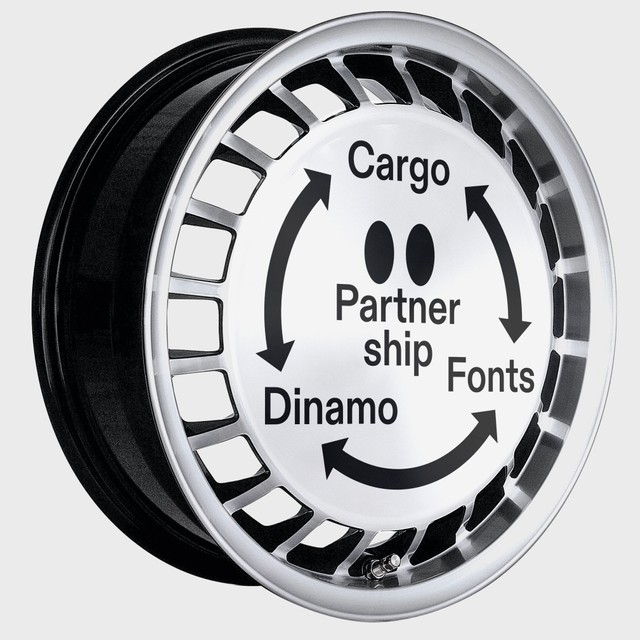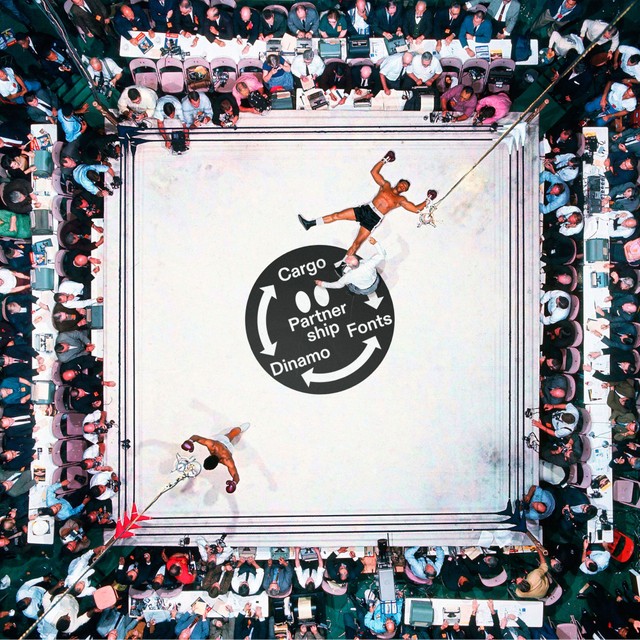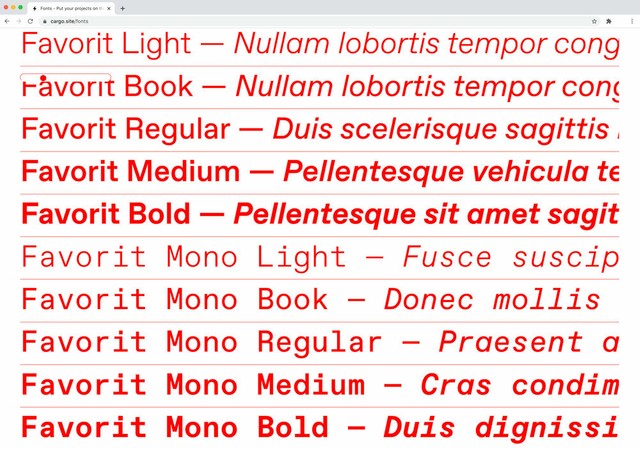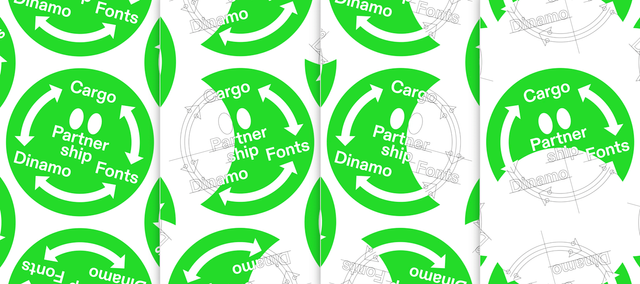
New Cargo x Dinamo Font Partnership —
We’re excited to announce that we’ve just united services with Cargo. Having been friends and admirers for quite some time and after memorably visiting the team in LA a year ago—looking at clay pottery and enjoying our first highway journey in a Tesla—it’s wholly exciting to finally be working together. The idea for a partnership has been almost three years in the making, and we agree with what Cargo says about it: It feels like ancient friends in modern bodies ♻♻♻.
From this moment on, all Cargo users have full access to a selection of our favorite (😉🙄) Dinamo fonts. The offering features three families of various sans genres and includes: Diatype, Diatype Mono, Diatype Semi-Mono, Favorit, Favorit Mono, Monument Grotesk, Monument Grotesk Mono, and Monument Grotesk Semi-Mono. We hope there will be something for everyone in this mix, from the technical and expressive ABC Favorit to the sturdy ABC Monument to the elegant and most recently released ABC Diatype.
NB: This is a partnership of the long haul variety and we’ll be lending our type voice to the platform in other ways too, so watch out for further news. Also, this is an exclusive partnership—these fonts will not be available on other any other site builder.
Now that the trio of families have been officially released, we’re excited to see how they’ll live outside of our garden and on communal grounds. 🌷
L.A. Confidential (Backstory)
Walking
More walking
Someone’s backyard
G.T.L. Gym Tan Laundry
Visiting Waka Waka’s workshop
First Emails with Cargo
Too aggressive Hardware idea
Non-aggressive talking
The Partnership’s Identity
A project of this scale is also a good excuse to initiate collaborations with people whose designs we’ve been admiring from a distance, and so we invited three new voices on board to work on a mini-identity for the partnership.
Tim
Julia
Lucas
Joining us from Berlin, multidisciplinary designer Tim Lindacher created the Cargo<>Dinamo<>Fonts coin to represent the new ecosystem. We’ve long admired Tim’s art direction for Berlin’s music label and community youth center Live From Earth, and, above all, his kind personality. Tim laid the foundation for everything you’ll see below, and he stayed on as supervising guide until the end.
Tim (semi-voluntarily) chose ABC Diatype as the identity’s font 👆🏻
The Coin RELOADED 🥇
Fun fact: The coin wasn’t our first idea. We didn’t nail the initial proposal we came up with together, but we thought we had, and crowned each other geniuses for a brief moment. The Cargo team saw straight through the proposal though and sent it direct-way to the trash. (It included a juggling Gandalf and a tree hung with letters).
After re-emerging from the rock under which we had hidden, a new idea for the ecosystem came about, one far more suited to the partnership's intention and energy. The coin was born! And with it a growing collection of remixes/coin-textualizations:
To get the ecosystem spinning, motion designer Lucas Hesse came on board from Hamburg. Lucas studied with a bunch of famous names in Seoul, Mainz, and Offenbach, and he now runs his own studio. He’s very pro, creates ideas that work fast, and has a beautiful email signature. For us, he came up with a range of storyboards, avoiding the usual type-animating tricks. They’ll come to life mostly on our social channels over the next weeks.
Next, 3D artist Julia Kobel joined the project from Mannheim and was given a very loose brief. We were hugely impressed with how the soon-to-be graduate conjured up lab-world environments—part seasonally fluctuating paradise, part digital hellscape of NFTs and tech bros—for our coin to live inside. Can’t wait to work with her again, and you should hire her too.
In other news, we’ve just released a few dedicated pages to ABC Arizona, the first ever sans to serif superfamily. Our latest Darkroom tutorial goes through Arizona’s design features and guides users in modulating its visual output on the web. You can also read more about the making of Arizona and its five looks—Sans, Flare, Mix, Text, and Serif—here. And of course, Arizona’s own page with testers, glyph overview, and bundles.